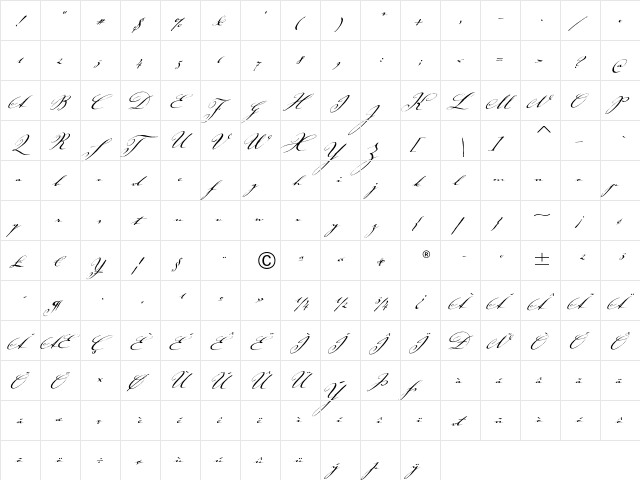
Johann Sparkling ITC Regular
Design Context for Johann Sparkling ITC Typeface
Johann Sparkling ITC is a composed and adaptable typeface that performs quietly and consistently across a wide range of design contexts.